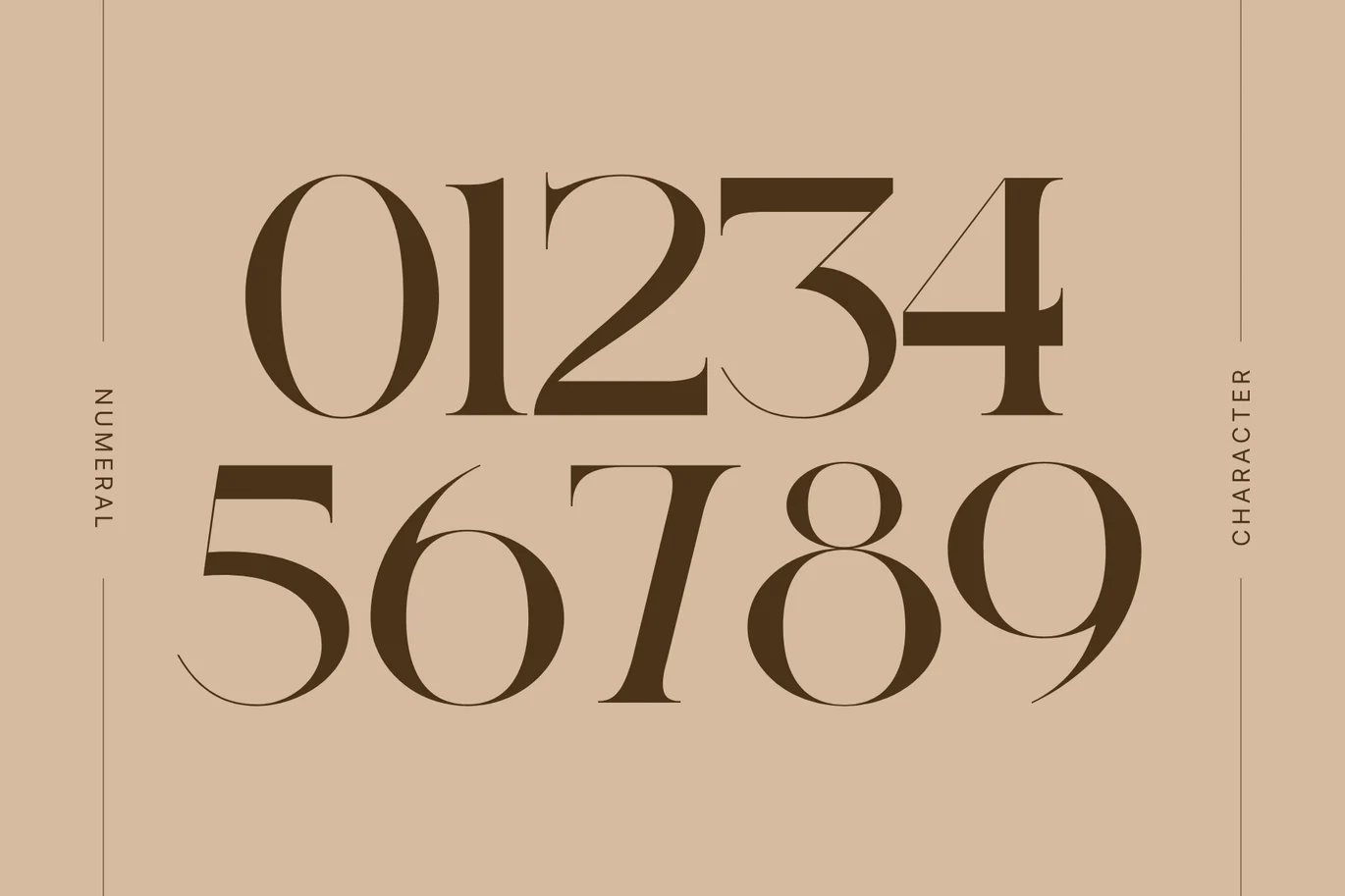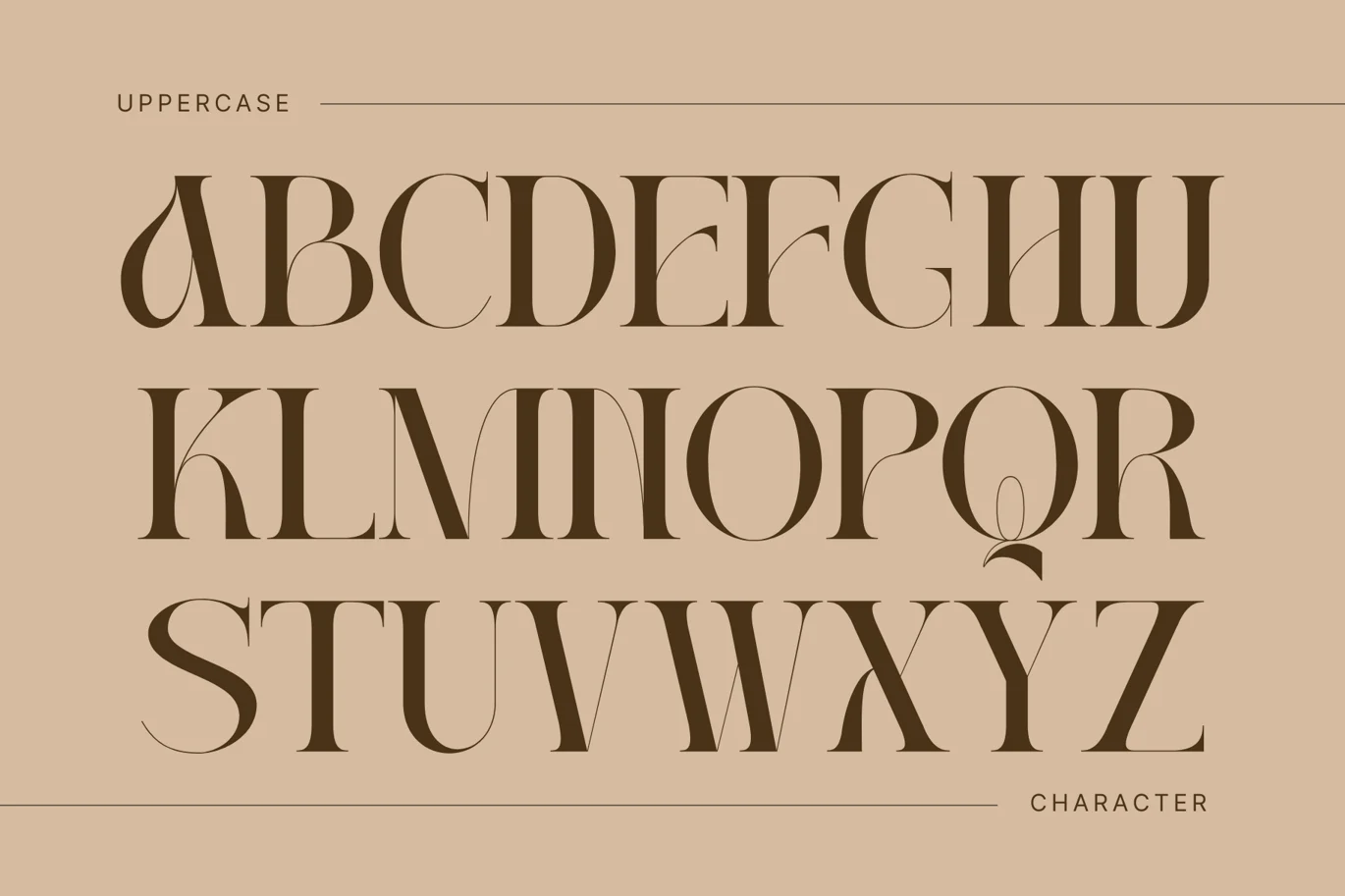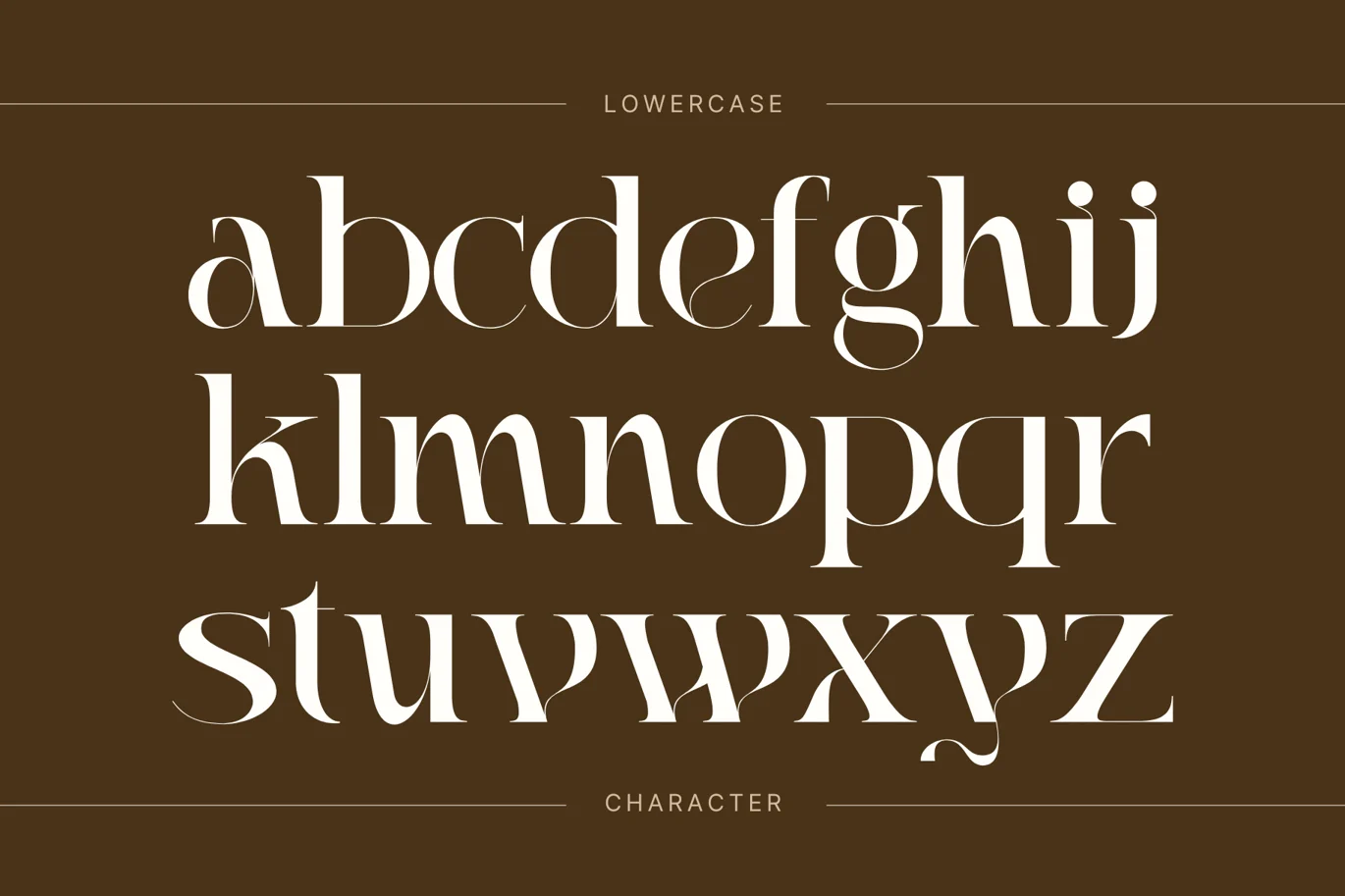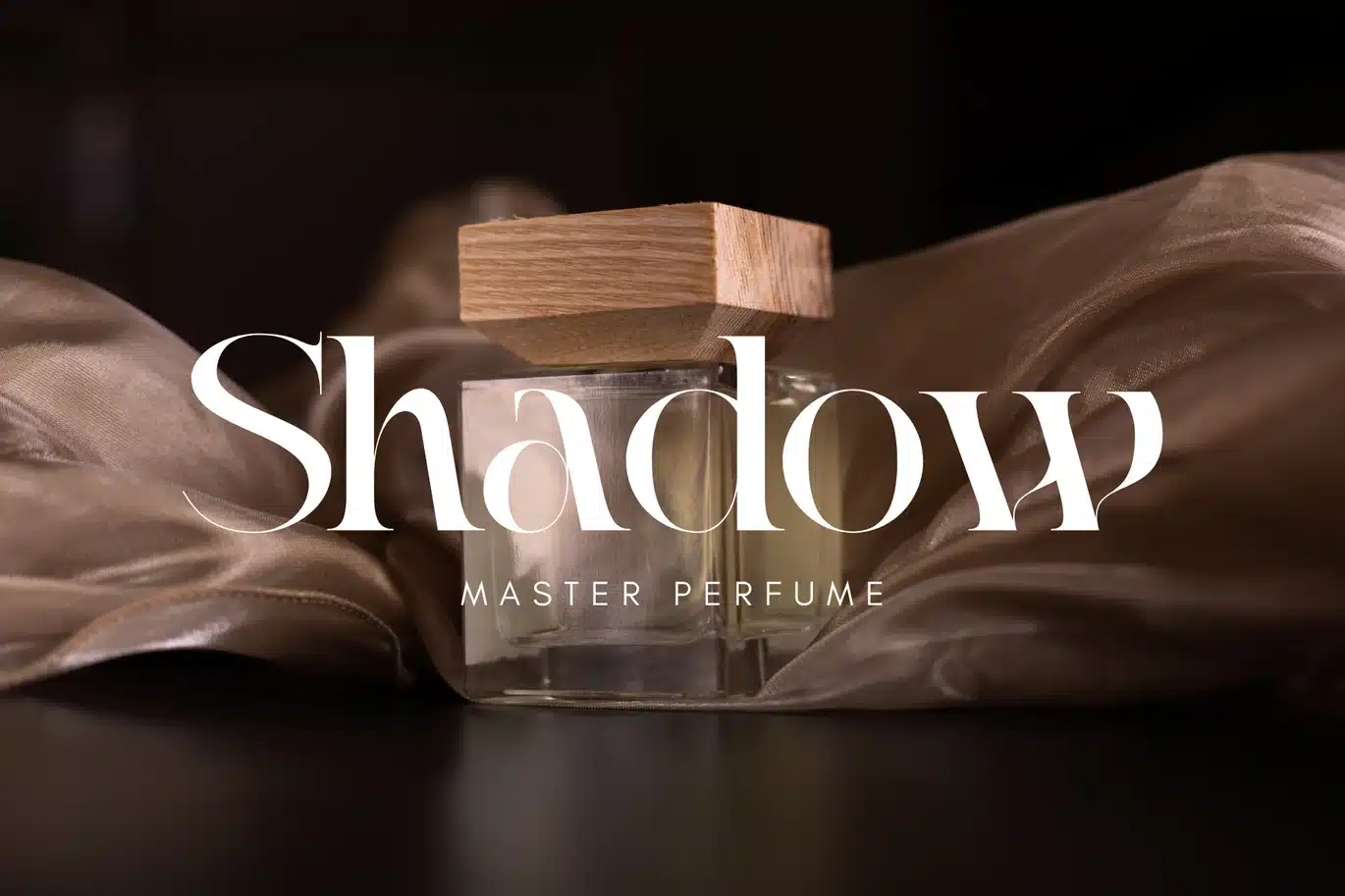
Ackor – Branding Logo Font
Ackor - Branding Logo Font
Ackor is a vintage serif display font that combines classic elegance with a touch of bold character. Its refined letterforms are inspired by traditional typography, with exaggerated serifs and well-balanced strokes that add sophistication and readability. Perfect for branding, editorial design, or any creative project that calls for a timeless feel, Ackor brings a sense of nostalgia while remaining versatile. The font's distinctive style makes it ideal for headlines, logos, and signage, lending charm and authority to any text.